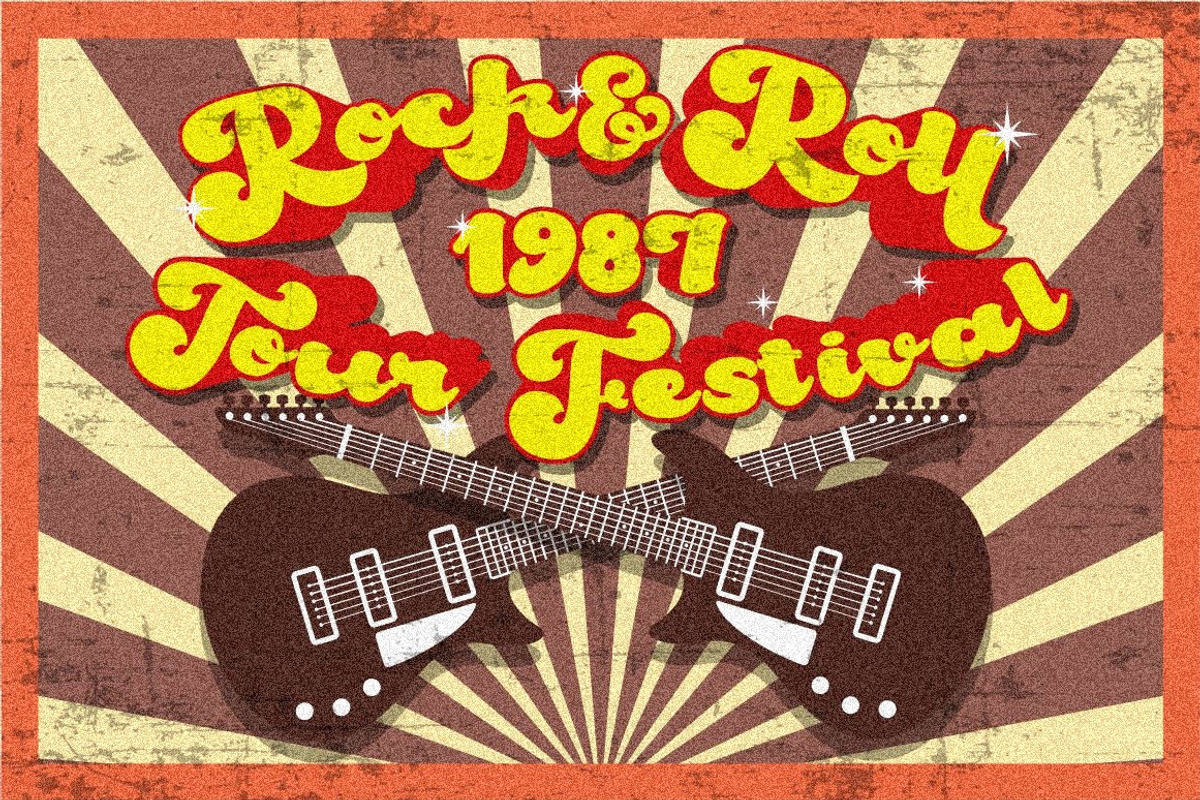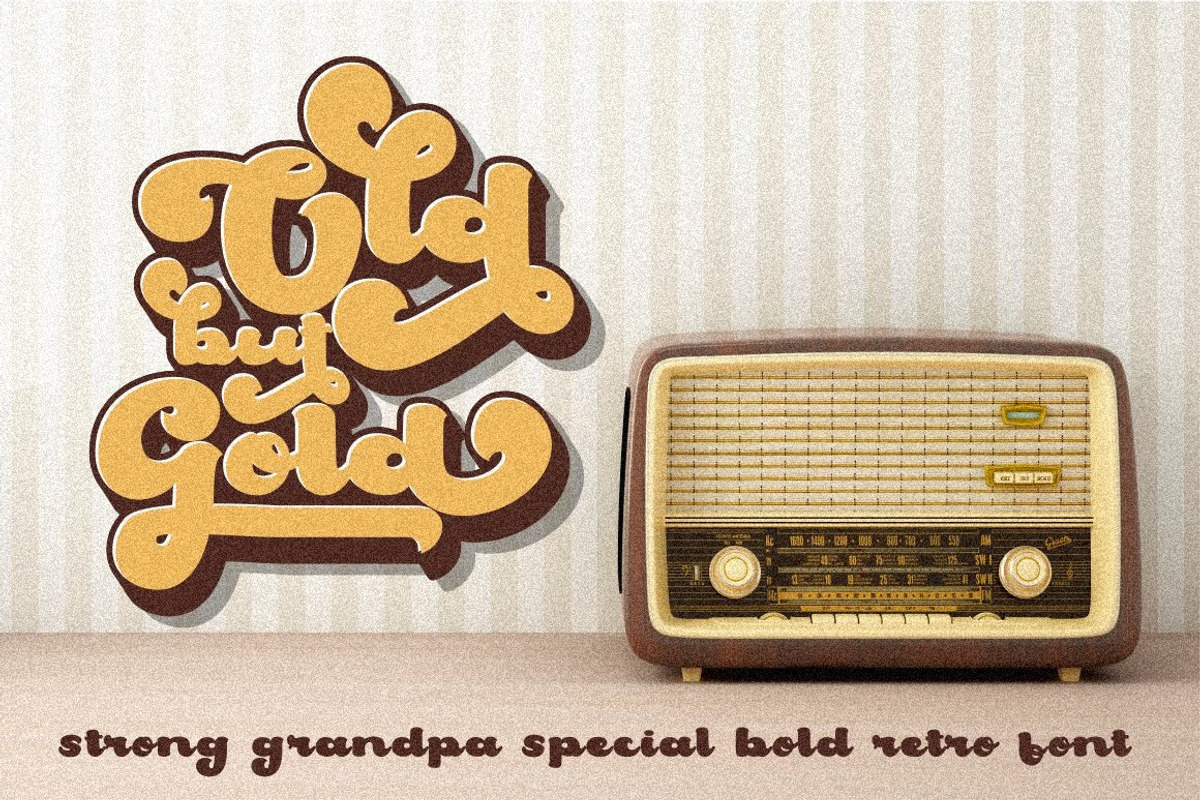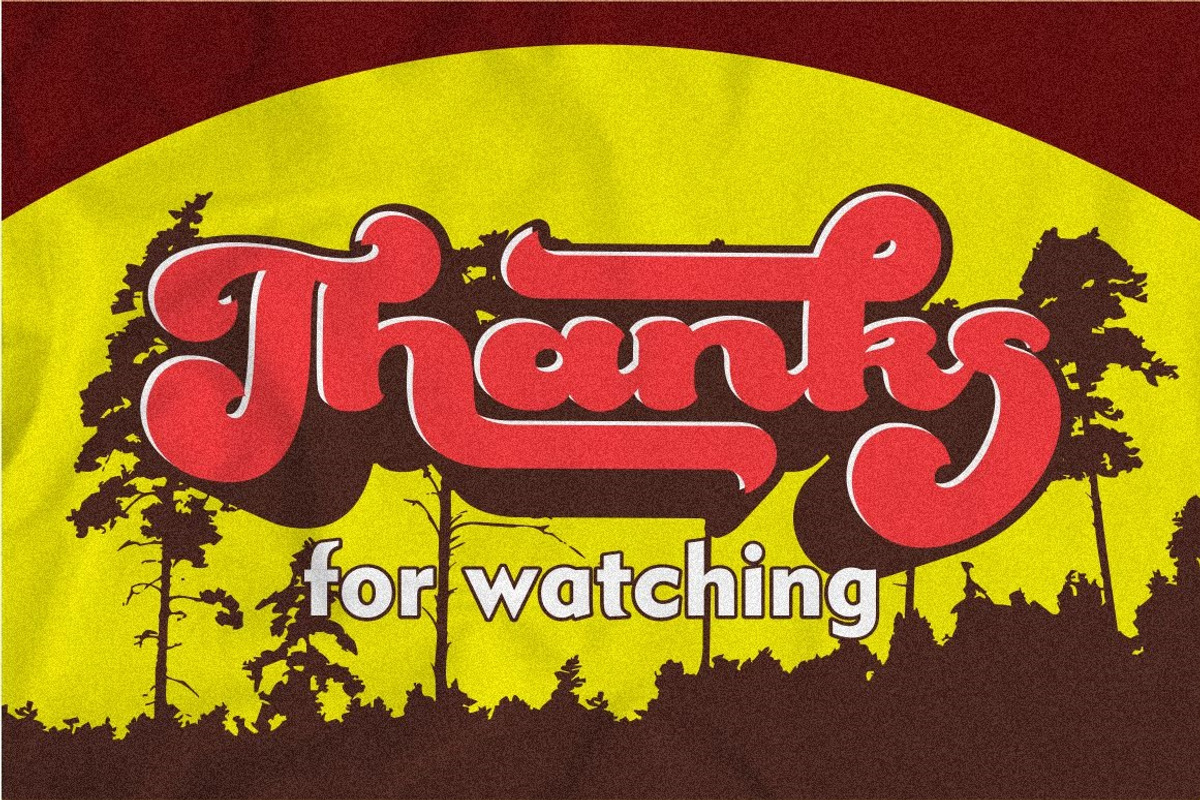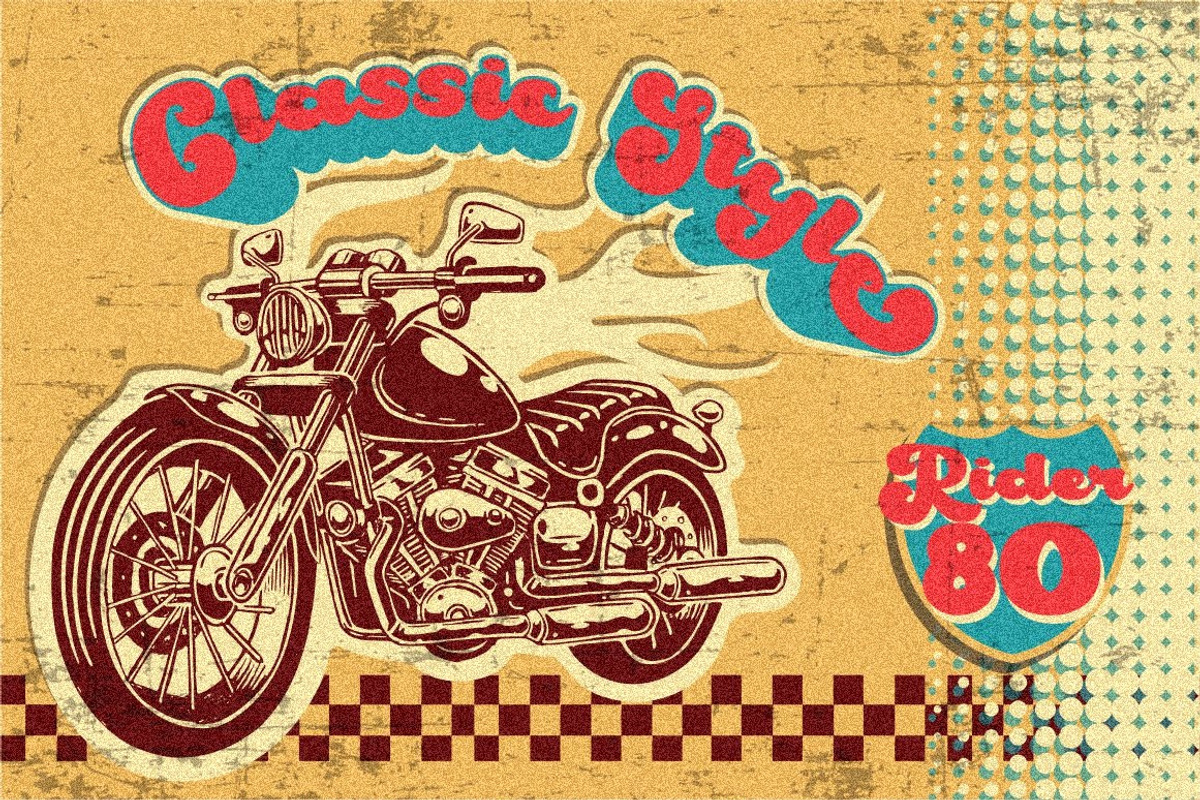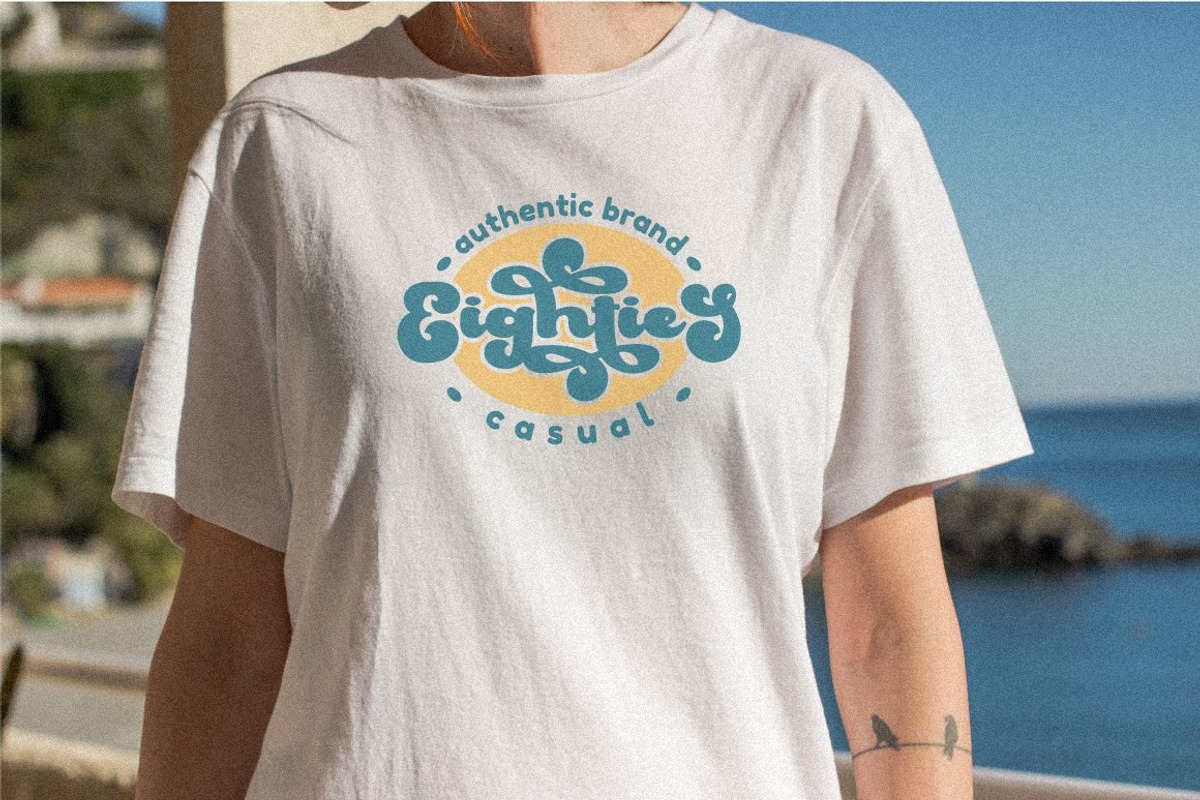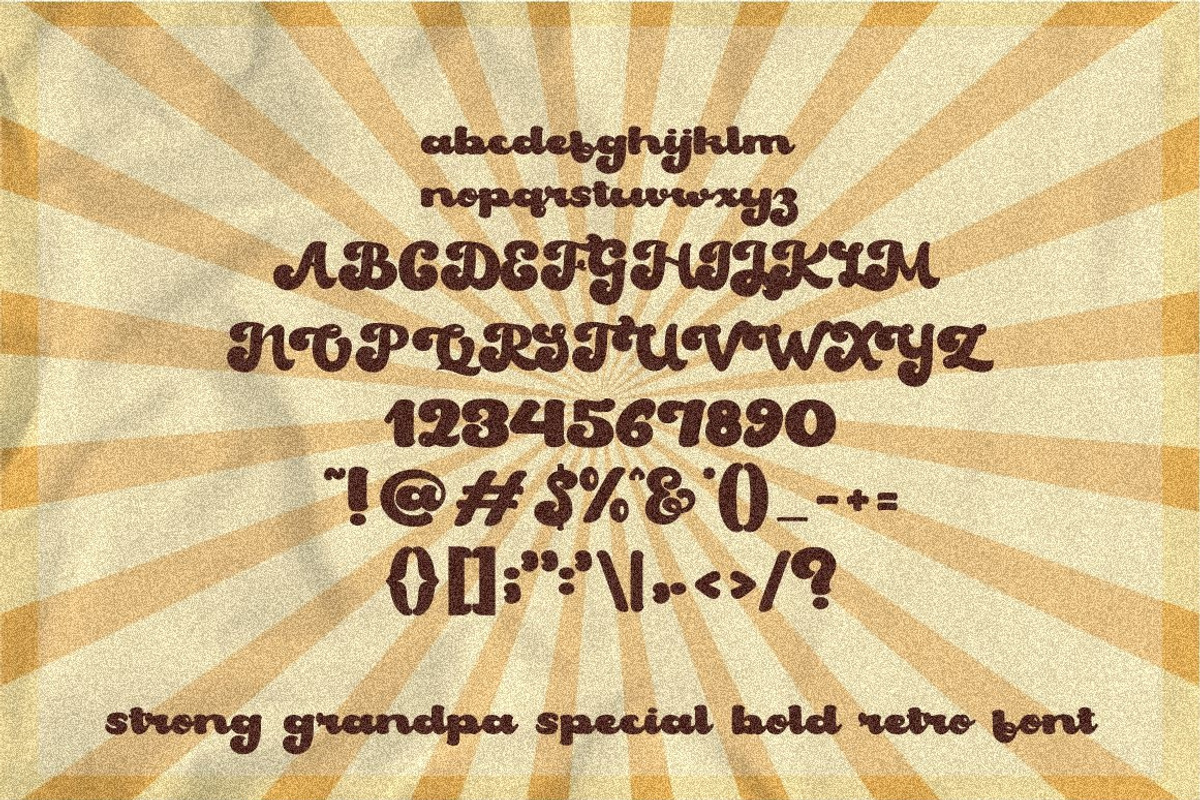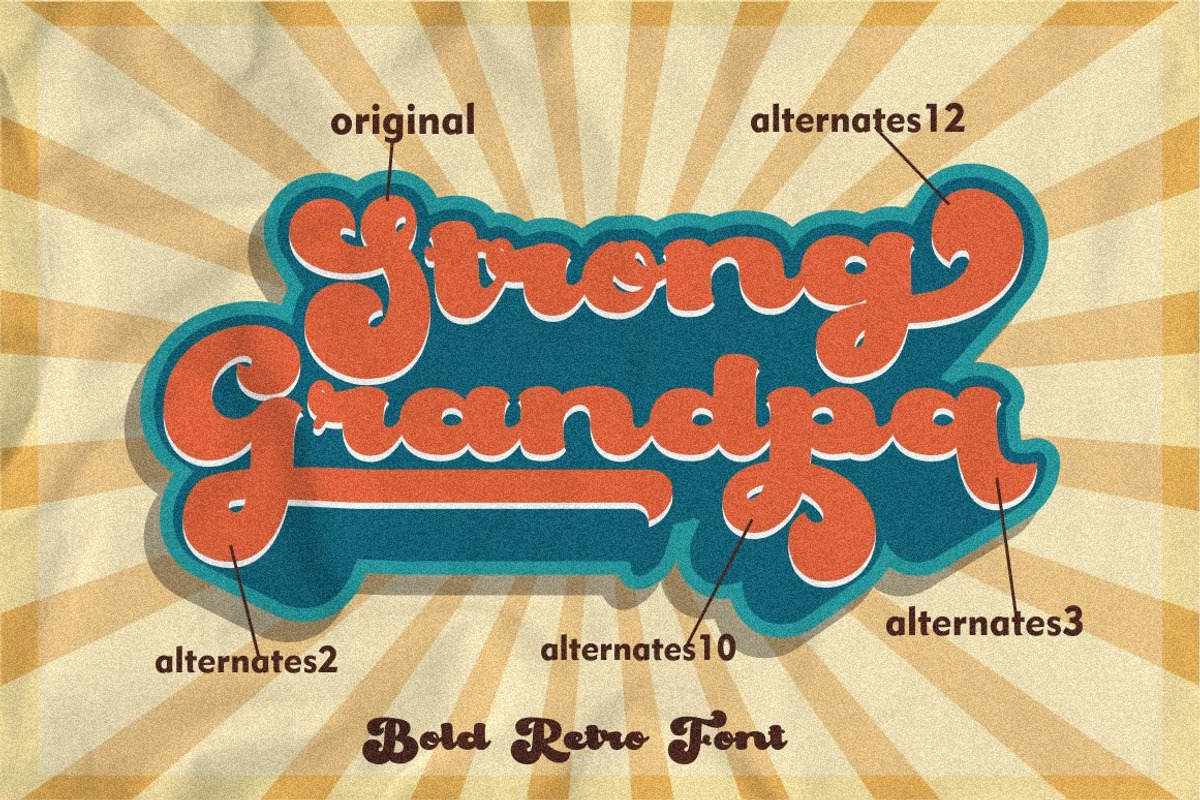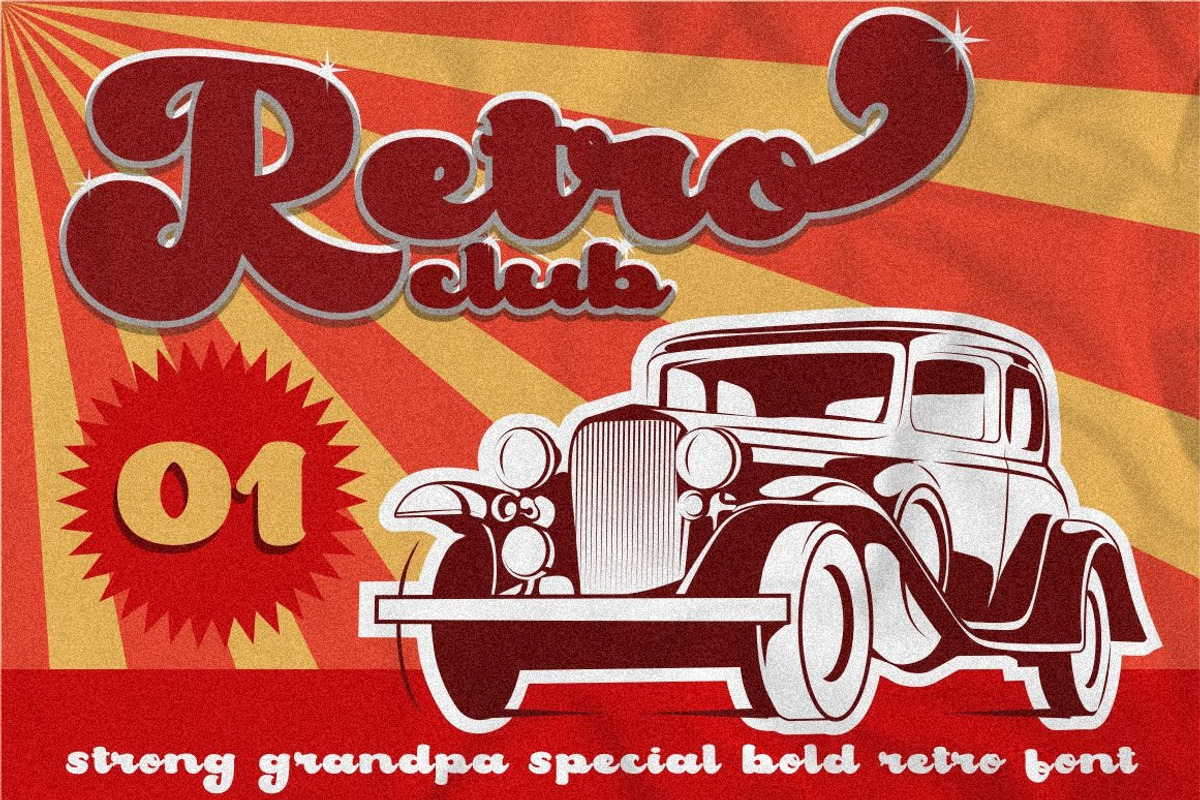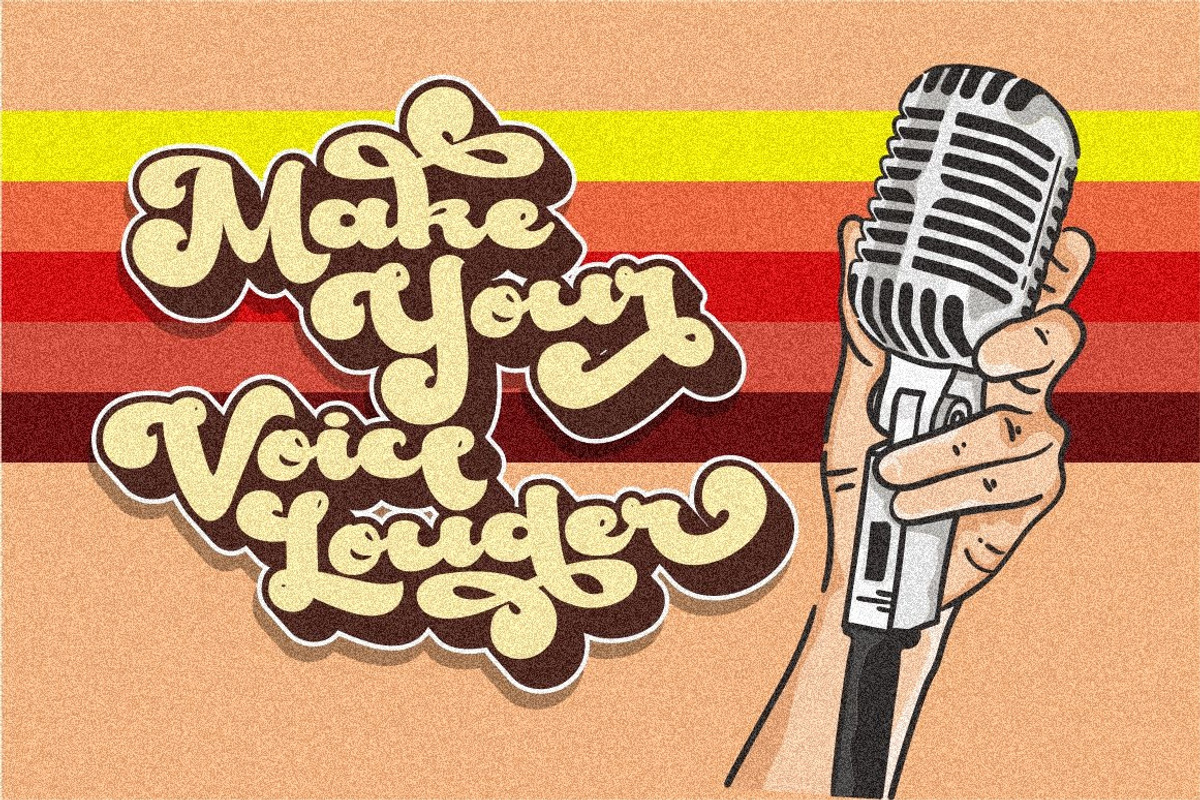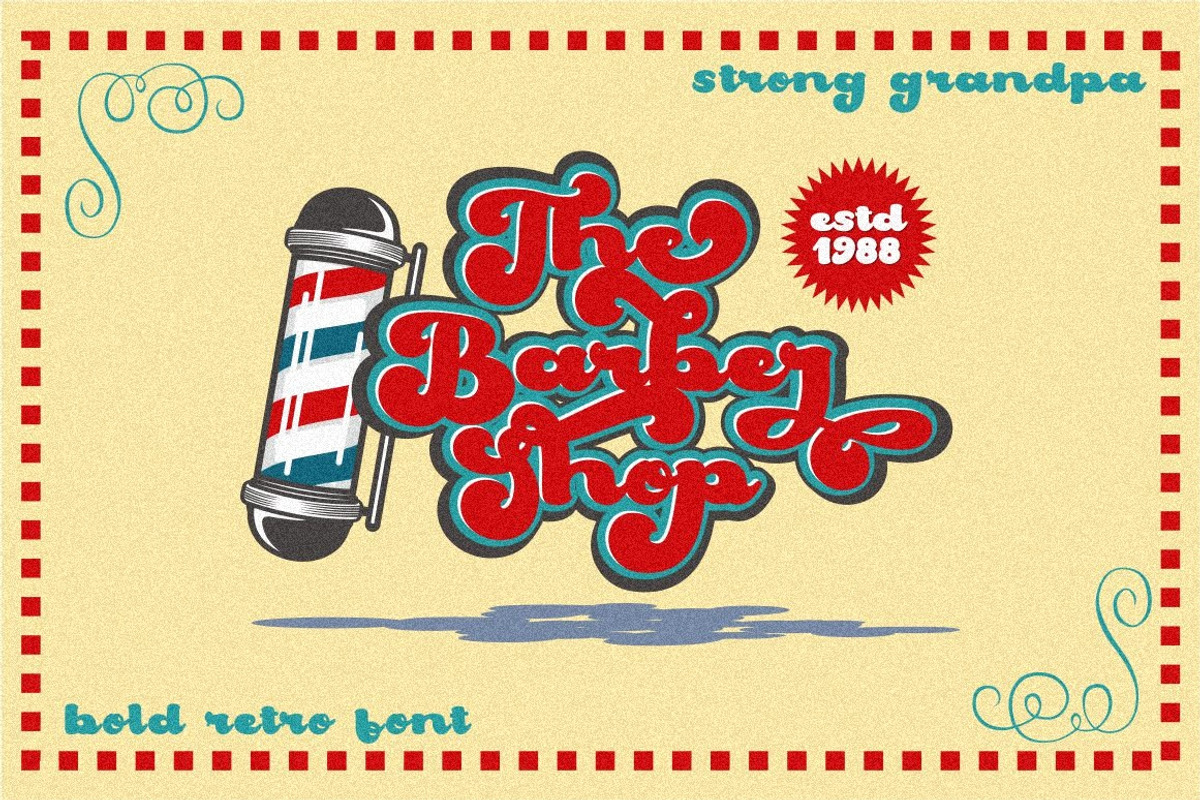
Strong Grandpa - Bold Retro Font
Strong Grandpa
Introducing Strong Grandpa, a super bold retro script font which will bring back to 60s - 70s fell. Inspired from retro typography and lettering in the 60's and 70's combine with bold typography style. it’s great for any project that needs a retro vibe or vintage touch. Strong Grandpa is perfect for vintage and retro design, badge, logos,t-shirt, poster, branding, title, heading, packaging, signage, book coverand so much more!
Come with Opentype feature with a lot of alternates, its help you to make great lettering. This font is also support multi language.